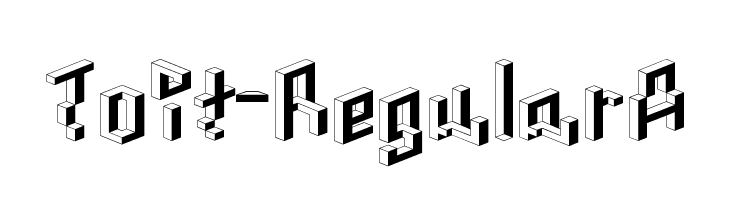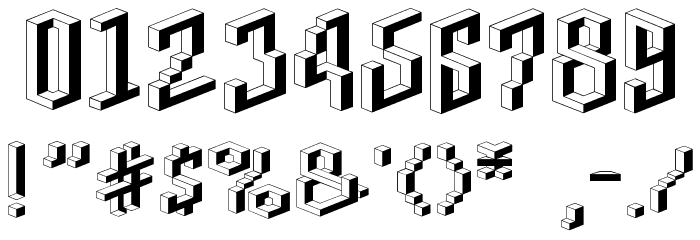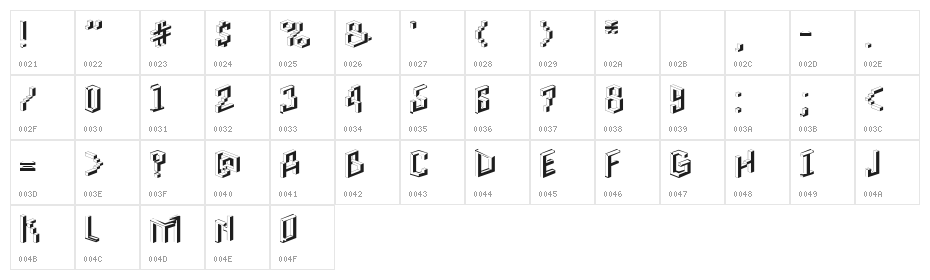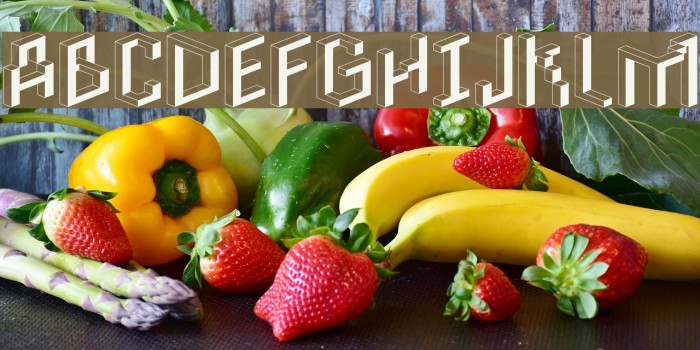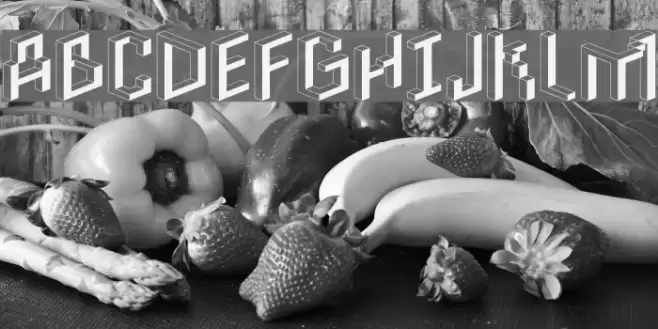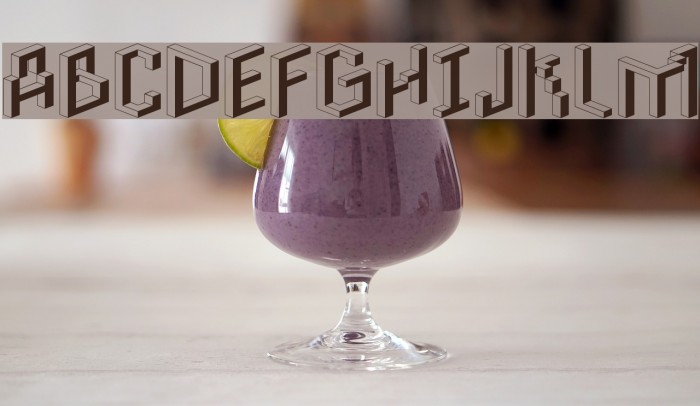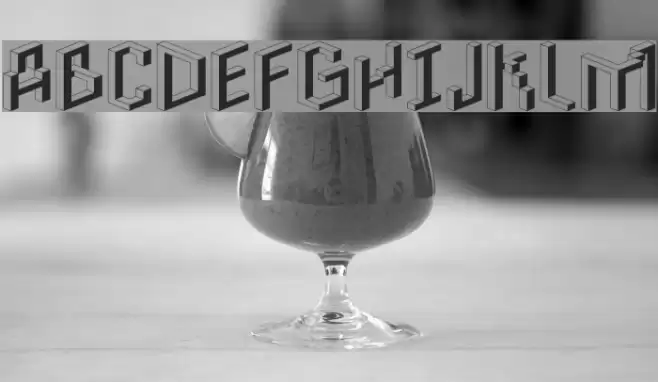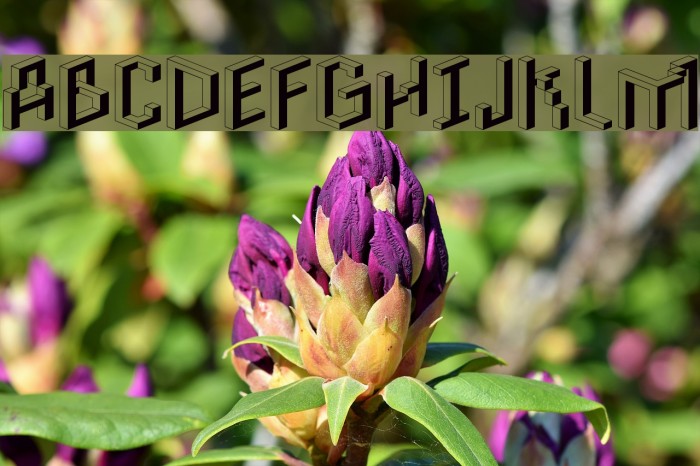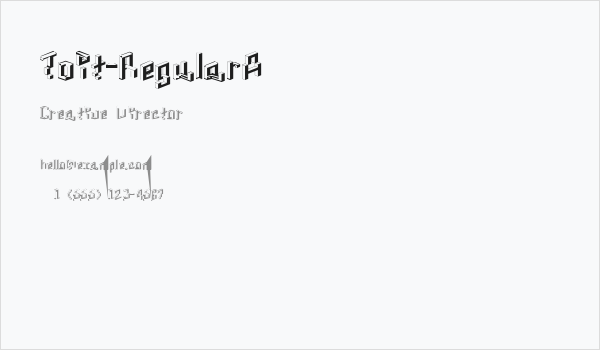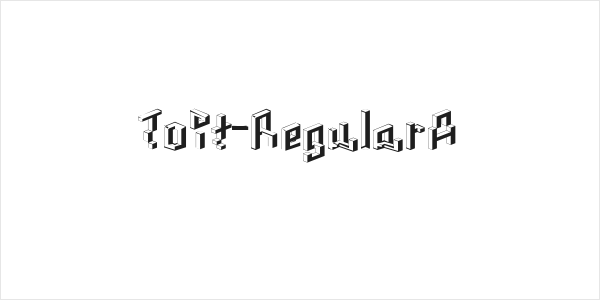
Toit-RegularA Font
Toit-RegularA Description
This font features a bold, three-dimensional design with a geometric and blocky appearance. Each character is constructed with a shadow effect that gives it a distinct, isometric look. The uppercase and lowercase letters maintain a consistent style, with sharp angles and clean lines that create a sense of depth and structure. Numbers and special characters follow the same design principles, ensuring uniformity across all glyphs. The font's unique style makes it stand out, offering a modern and playful aesthetic that is both eye-catching and versatile.
| Proposed Projects | Ideal for video game graphics, posters, logos, and any design requiring a modern, playful touch. |